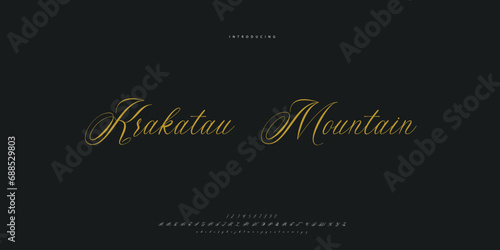
Abstract Fashion font alphabet. Minimal modern urban fonts for logo, brand etc. Typography Calligraphy typeface uppercase lowercase and number. vector illustration